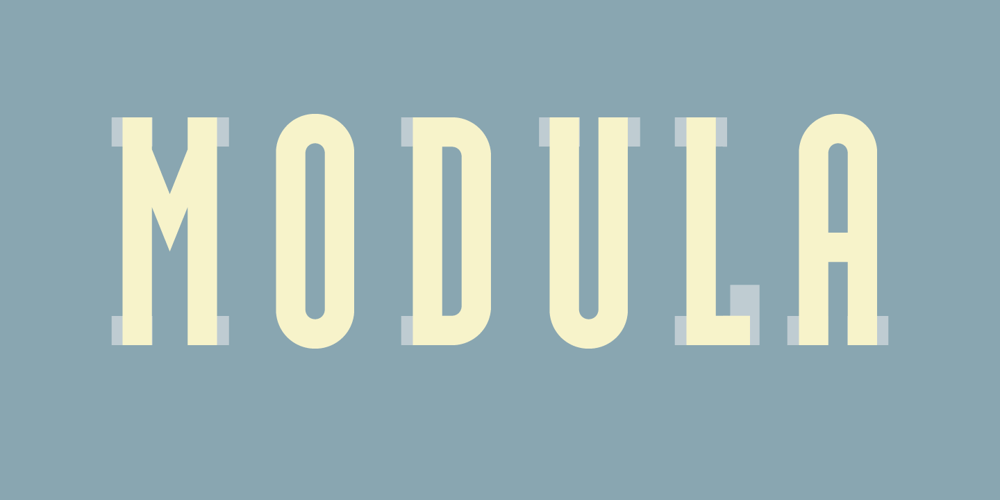
Modula Font Family was designed by Zuzana Licko and published by Emigre. Modula contains 7 styles and family package options. Modula was the first high resolution headline face that Zuzana Licko designed with the Macintosh computer. In 1985, the computer was very crude as far as being able to produce subtle curves, but it was outstanding at producing perfect geometric elements. As a guide, she used the proportions of her earlier Emperor Fifteen bitmap design and applied the precision of the computer’s geometric elements. See also Modula Round and Ribbed. Greek version by Dimitris Arvanitis.